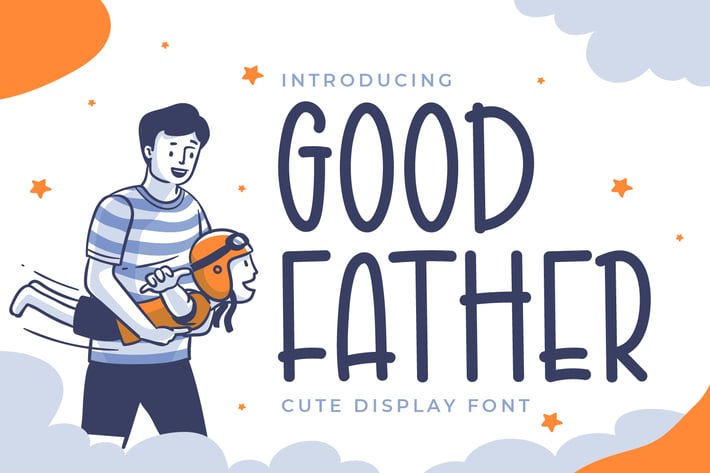
Good Father - Handwritten Display Font
Introducing Good Father - Handwritten Display Font
Good Father is a fun and cute display font that fits perfectly into anything. Whether you’re looking for fonts for Instagram or calligraphy scripts for DIY projects, this font will turn any creative idea into a true piece of art!
This font is perfect for quotes, shirt designs, websites, branding, children’s designs, blogs, logos, invitations, and more!